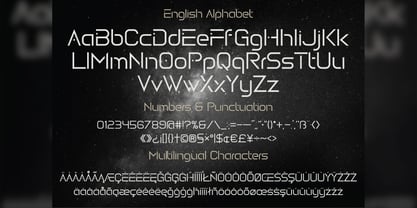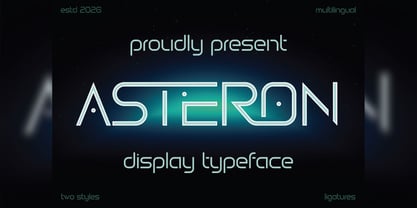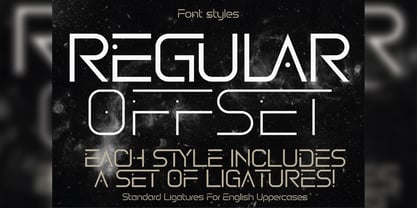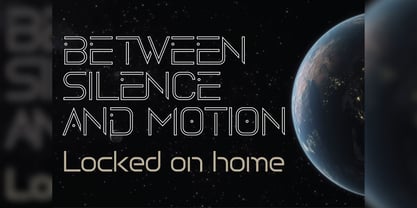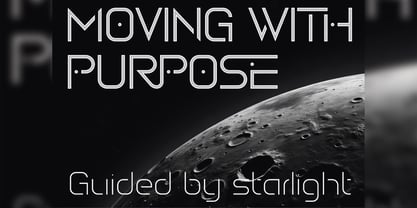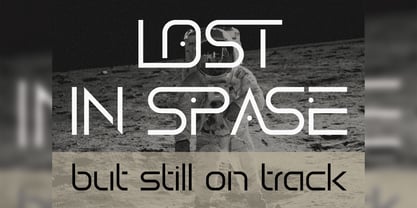
Asteron
por Vozzy
A família de fontes Asteron foi desenhada por Oleg Voznyy e publicada pela Vozzy. Asteron contém 2 estilos e opções de pacote familiar. Saiba mais sobre esta família
• Asteron Offset
• Asteron Regular
Sobre a família
I am pleased to present a new font called “Asteron”. It is a unique font for headlines, accent inscriptions, and for attracting attention! It contains additional characters, punctuation marks, multilingual characters, and a large number of standard ligatures (make sure your software supports this open type feature). This font will look great on your beautiful designs!
Designers: Oleg Voznyy
Fundição: Vozzy
Asteron